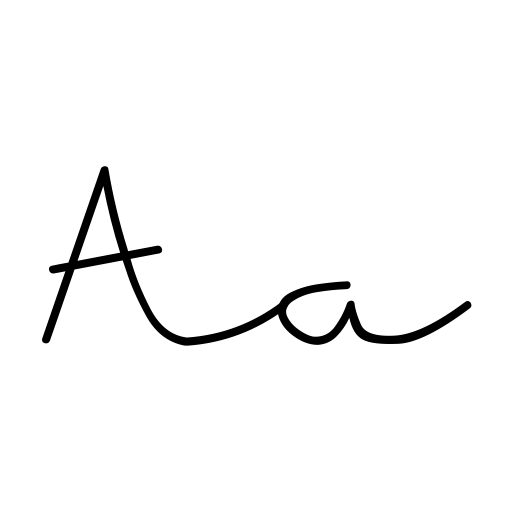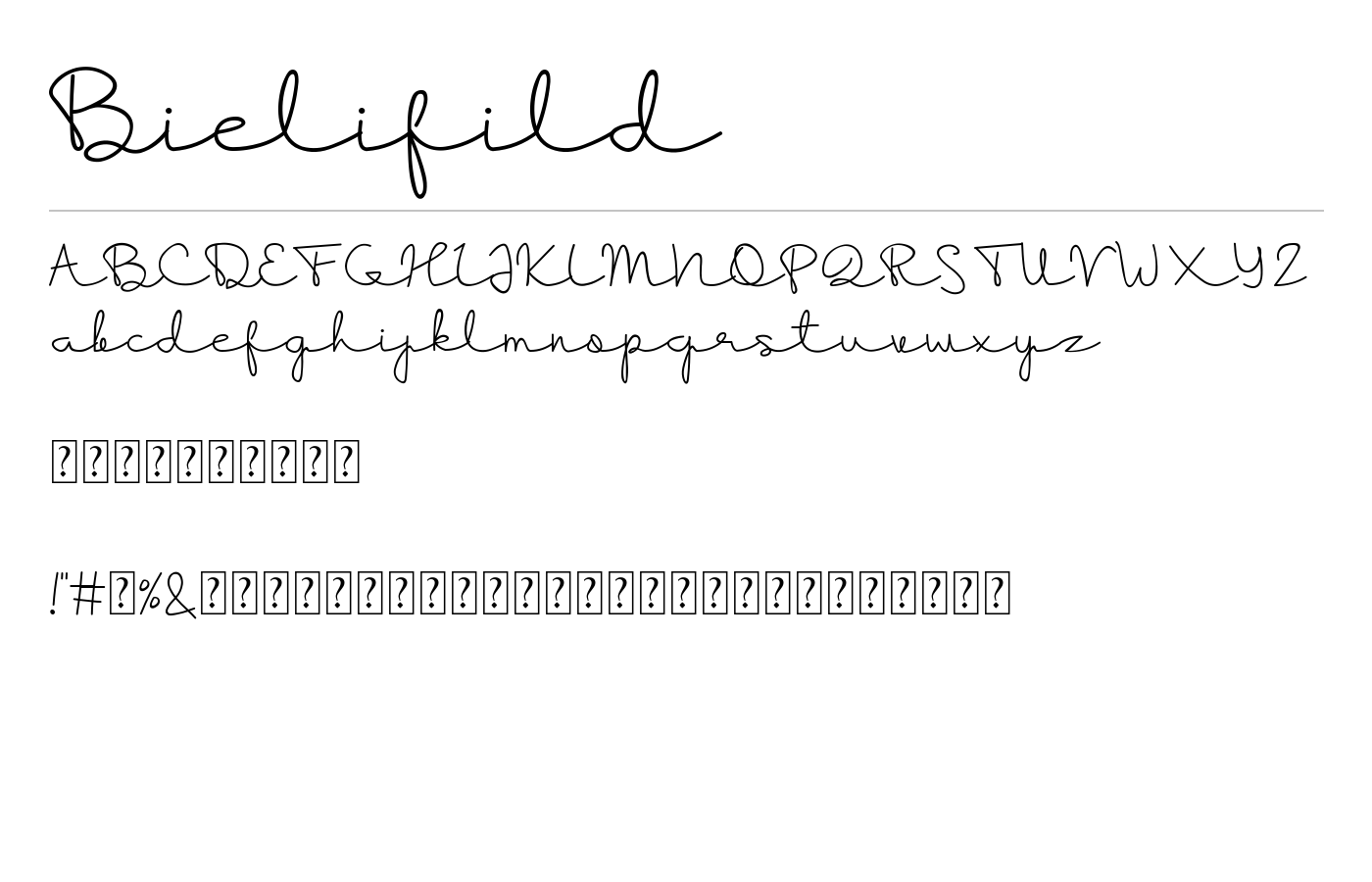
Bielifild is a delicate, handwritten script font characterized by its thin, smooth strokes and airy letterforms that convey a casual yet refined feel. Its tall x-height and elongated letters create elegant, flowing text ideal for personal branding, invitations, and creative projects seeking a touch of charm and sophistication. This font works well in designs that benefit from a friendly, approachable style with a hint of handmade authenticity.
Bielifild Font